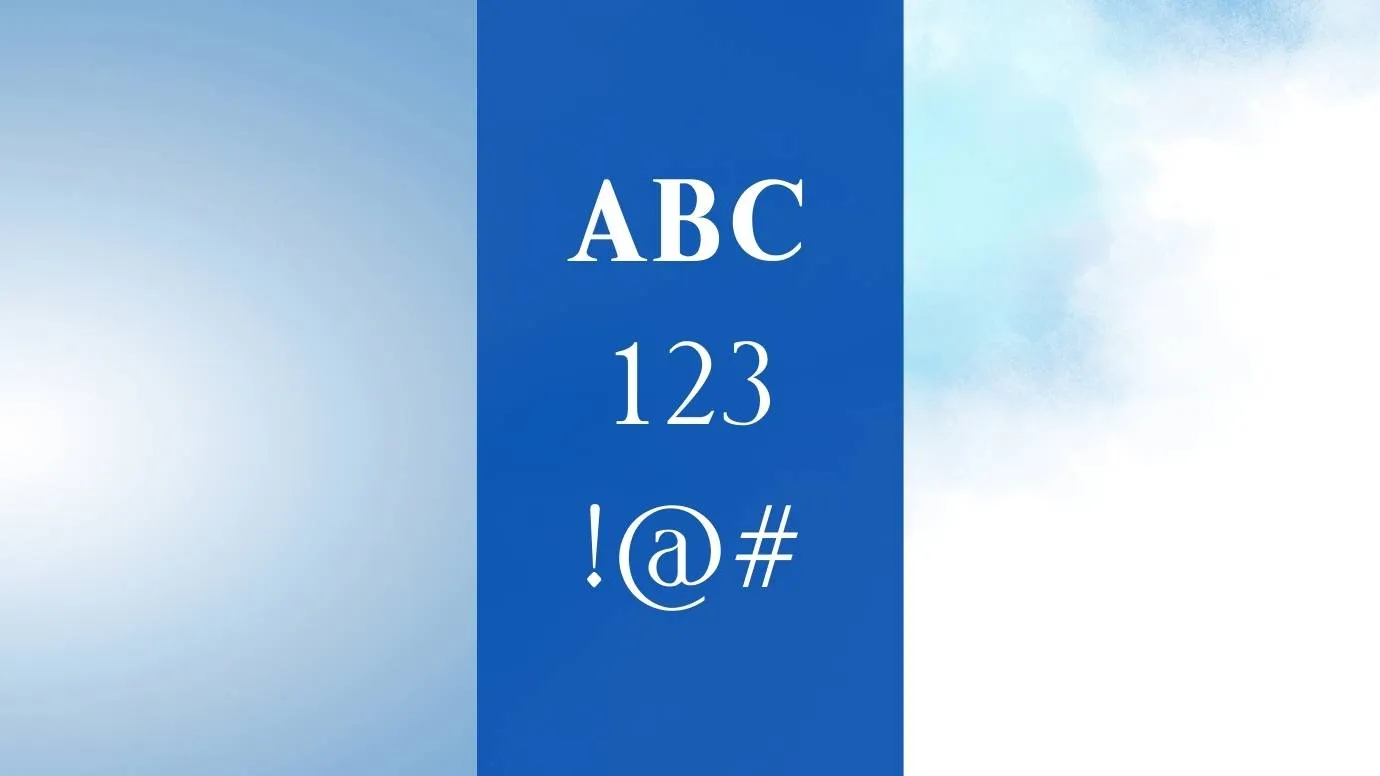
Smash Bros Font is a group member of the fancy typeface, the style of this texture is a game. This is a custom typeface designed for the smash bros series. It was first used in Super Smash Bros. for the Nintendo 3DS and Wii U.
The font is based on the typeset used in the original game’s logo. This typeface is the same as Dark Souls Font.
The font is used in this typeface. logo and throughout the games as text on various menus and in-game text. You can use this texture for graphic design, and logos. This is amazing for posters and banners. You can also use this font for homeware design.
Designer of Smash Bros Font
This gaming style of font is designed by a famous graphic design company, which is known, like Nintendo.
This font family includes a single style, this regular style consists of glyphs, digits, capital letters, small letters, punctuation, a set of characters, and a wide range of language support.
| Name | Smash Bros Font |
| Style | Games |
| Designer | Nintendo |
What font is Smash Bros Font?
This is a group member of the fancy typeface, the style of this texture is a game. This is a custom typeface designed for the smash bros series. It was first used in Super Smash Bros.
Who created the Smash Bros Font?
This gaming style of font is designed by a famous graphic design company, which is known, like Nintendo.
What makes Smash Bros typeface unique?
The font is based on the typeset used in the original game’s logo, which gives it a retro feel. Additionally, the font is designed specifically for it, which makes this typeface unique.